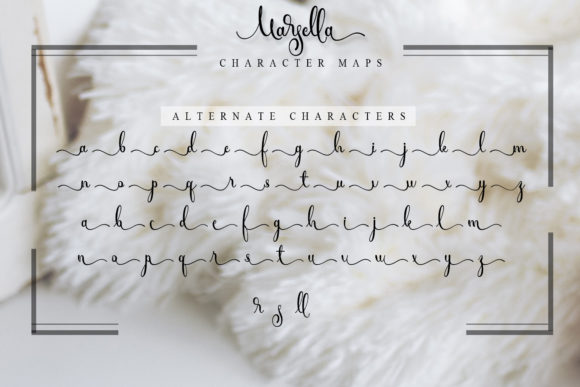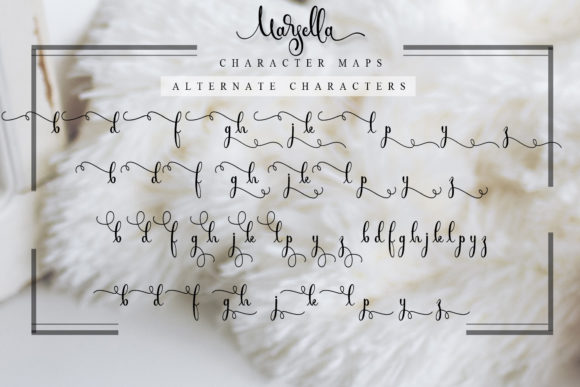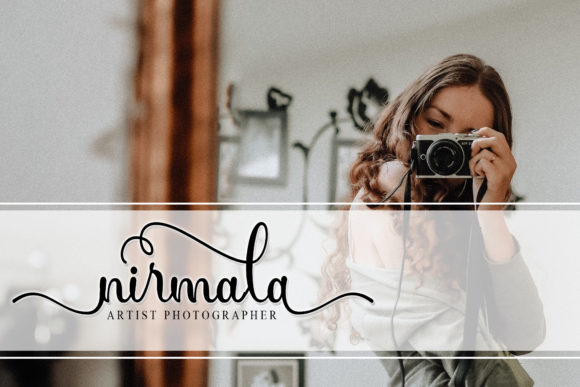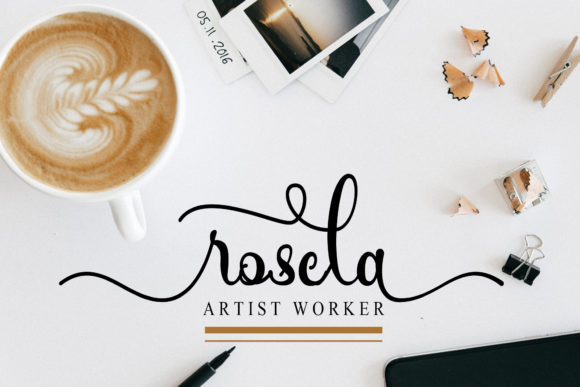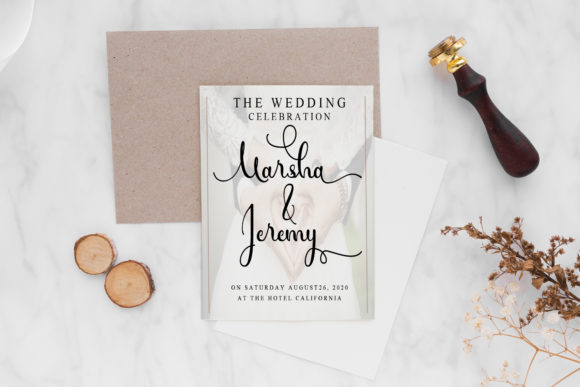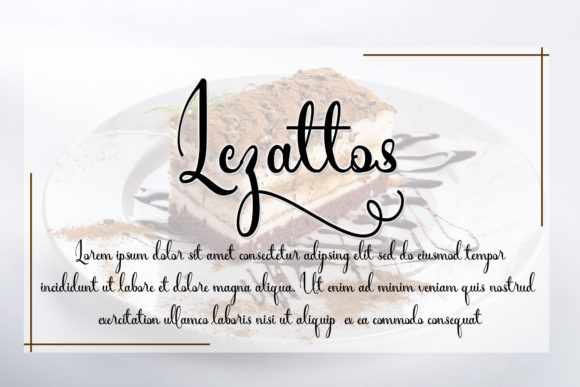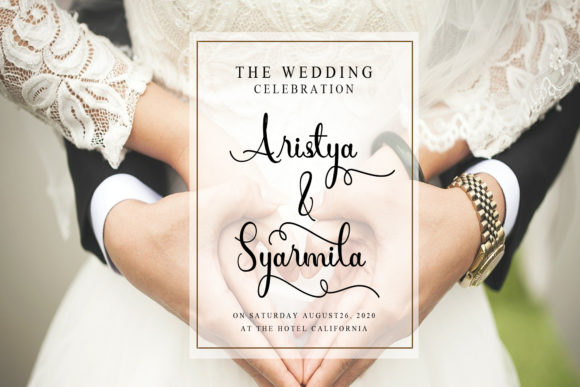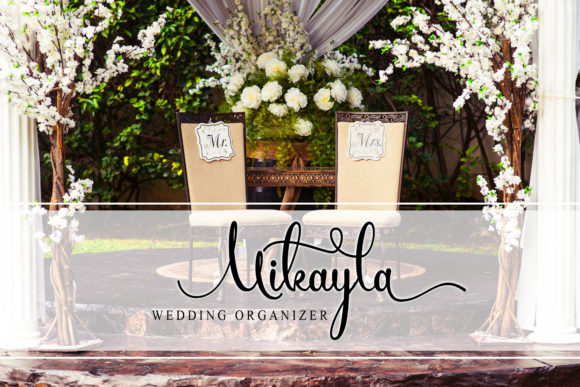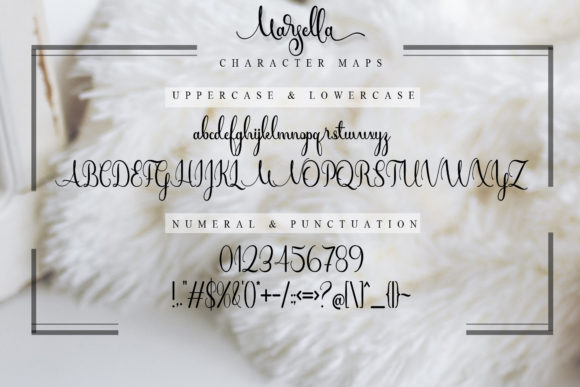
Marsella Font
About Marsella Font
Marsella is a magical handwritten font carefully created with a touch of elegance. It features gorgeous swashes and ligatures that make this script incredibly versatile. Whether you’re looking for fonts for Instagram or calligraphy scripts for DIY projects, Marsella will turn any creative idea into a true piece of art!